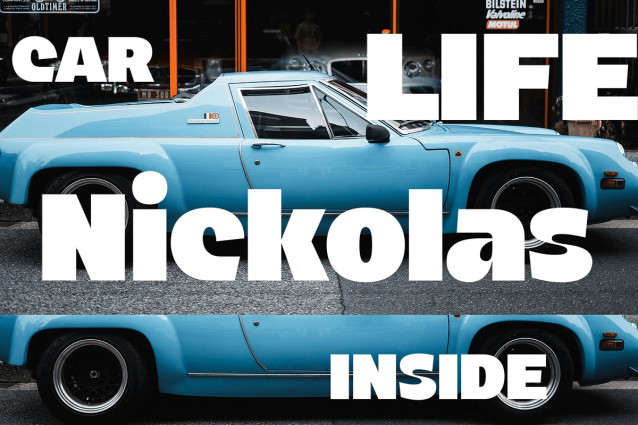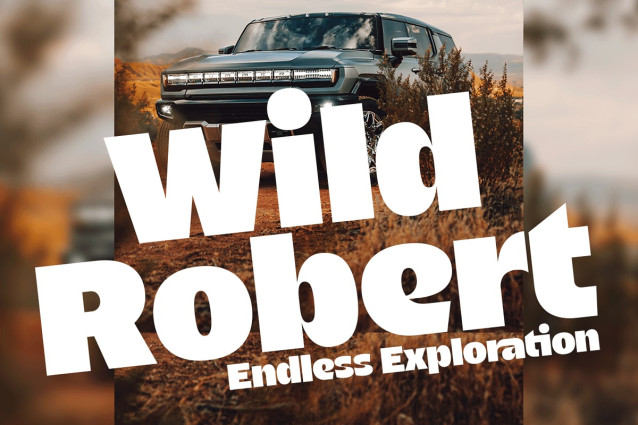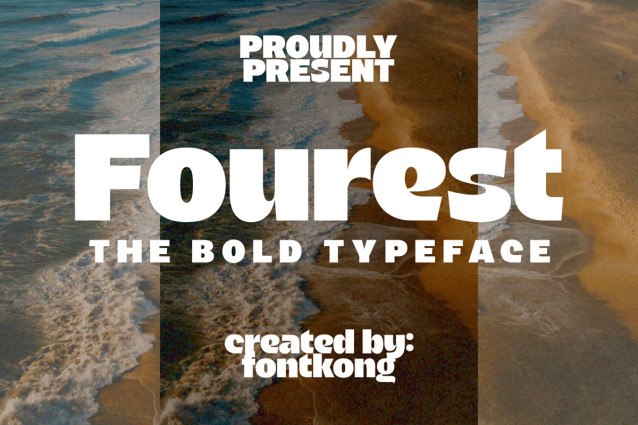
Fourest Font
Fourest Font a bold and striking typeface that commands attention. With its strong, geometric letterforms and clean lines, Fourest brings a sense of confidence and power to any design. Perfect for projects that need to stand out, this typeface ensures your message is impossible to ignore.